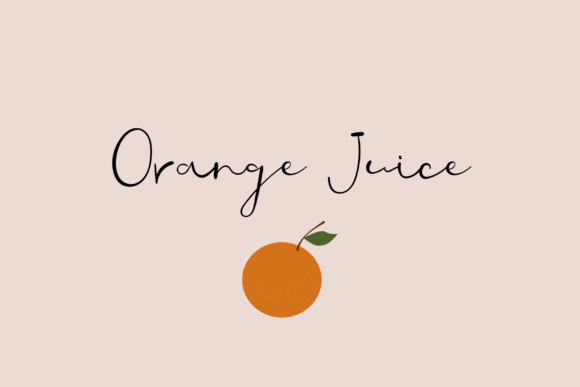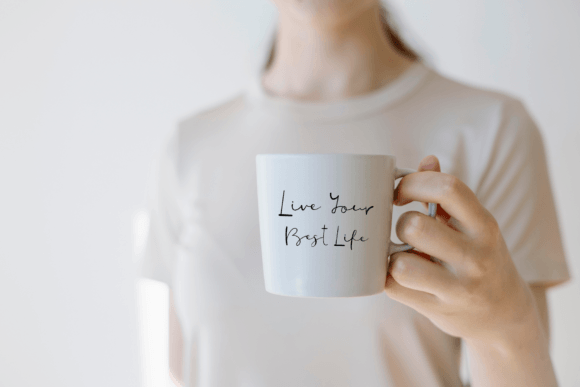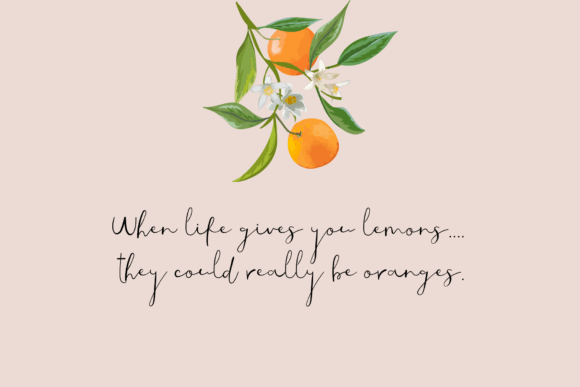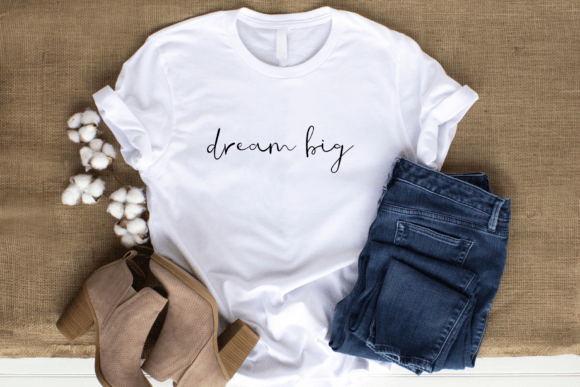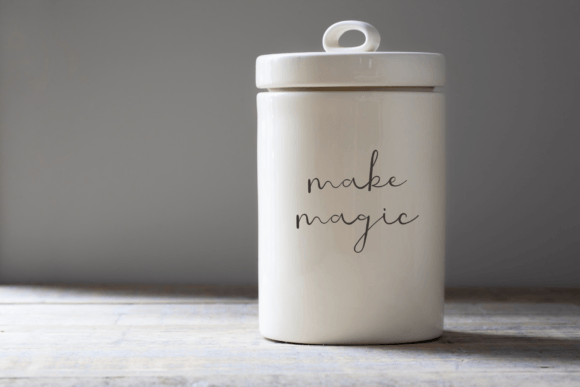
About Orange Juice Font
Bring Sweetness to Your Designs
Orange Juice font is a cute and charming script font that adds a playful and sweet touch to any creative project. Its adorable style brings a fun and lighthearted energy that makes your designs truly unique.
Perfect for Whimsical Projects
This font works wonderfully for projects that need a sense of whimsy. Whether you’re crafting greeting cards, invitations, or social media graphics, Orange Juice infuses your work with delightful charm.
Playful Curves and Details
The font features smooth, playful curves and lovely details that enhance the overall look. These elements ensure your text catches the eye and keeps viewers engaged, making it perfect for branding materials as well.
Versatile for Many Uses
Orange Juice is highly versatile. Use it on invitations for special occasions, fun social media posts, or branding projects that want to convey a friendly and approachable vibe. Its cheerful style brightens up any design.
Why Choose Orange Juice?
Cute and playful script font
Perfect for greeting cards, invitations, and social media
Features whimsical curves and charming details
Adds a sweet, friendly feel to your branding